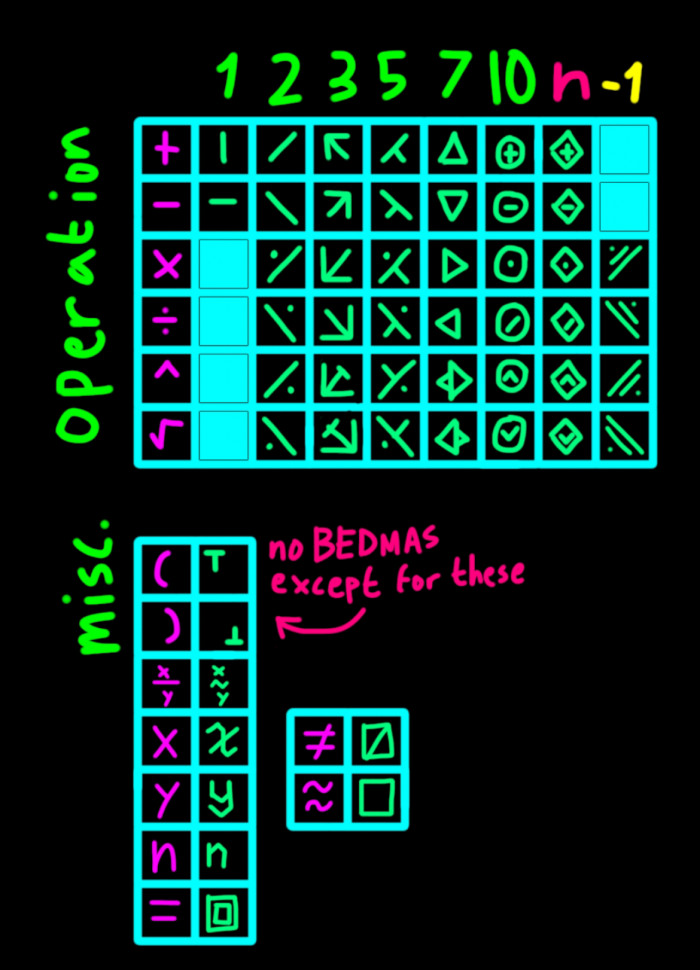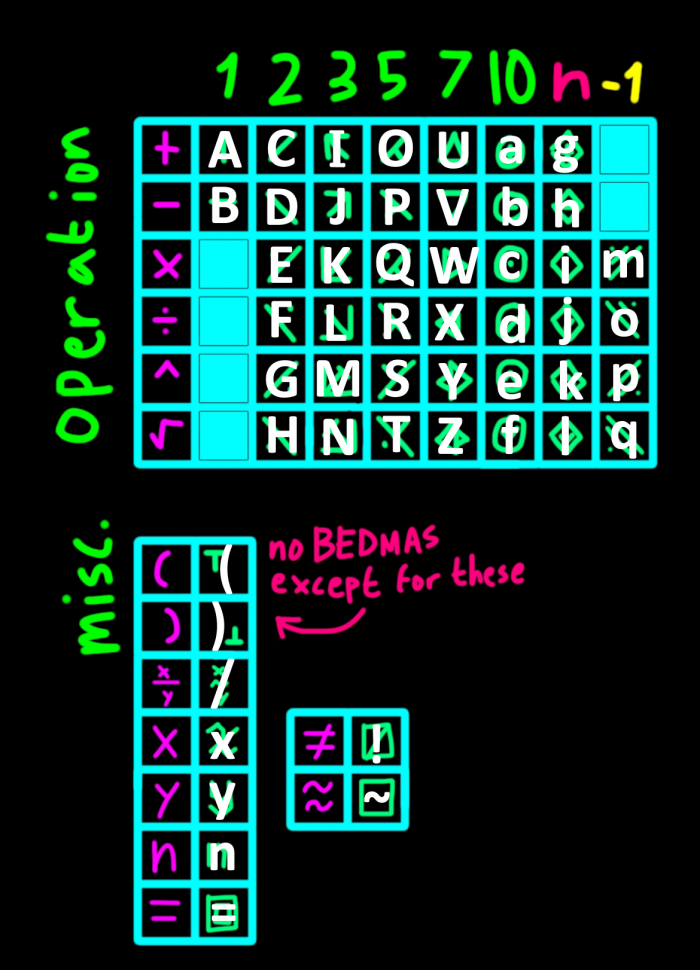
• A font for @a_pc (on discord)'s number system. The character layout is a bit confusing, so you'll just have to figure the stuff out yourself. Update: There is now an ASCII character map sample in the comments.
An image of the number system
The ASCII mappings for the characters
Update: the characters for 4 are added and are mapped to the characters r-w